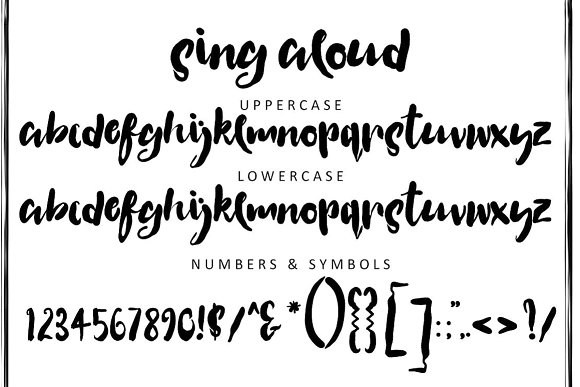
**Introducing Sing Aloud: The Font That Will Make Your Designs Sing**
In the world of design, fonts are like the voices that speak through your creations. They have the power to evoke emotions, convey messages, and leave a lasting impression on your audience.
That's why we're excited to introduce you to Sing Aloud, a stunning script font that will transform your designs into captivating masterpieces. Created by the talented team at Creativeqube Design, Sing Aloud is a handcrafted work of art that embodies the essence of elegance and charm.
**A Font That Sings with Emotion**
With its graceful curves and playful flourishes, Sing Aloud has a unique ability to capture the emotions of your audience. Whether you're crafting heartfelt invitations, creating whimsical posters, or designing enchanting logos, Sing Aloud will infuse your designs with a touch of warmth and personality.
**The Perfect Font for Any Occasion**
The versatility of Sing Aloud makes it the ideal choice for a wide range of design projects. From elegant weddings to whimsical birthday parties, Sing Aloud will add a touch of sophistication and charm to any occasion.
**A Font That Inspires Creativity**
Sing Aloud is more than just a font; it's a source of inspiration for your creative journey. Its unique character will spark your imagination and help you create designs that are both visually stunning and emotionally resonant.